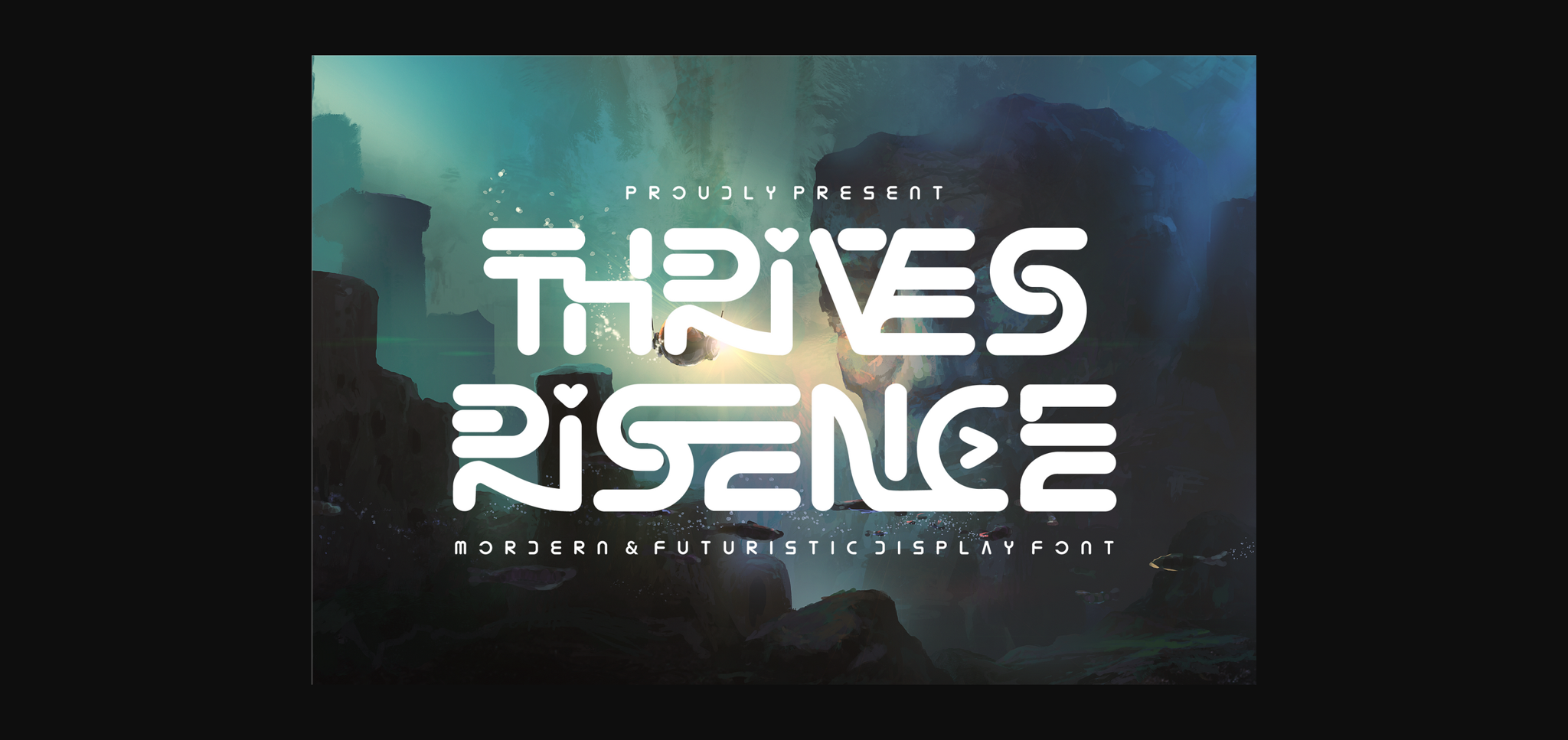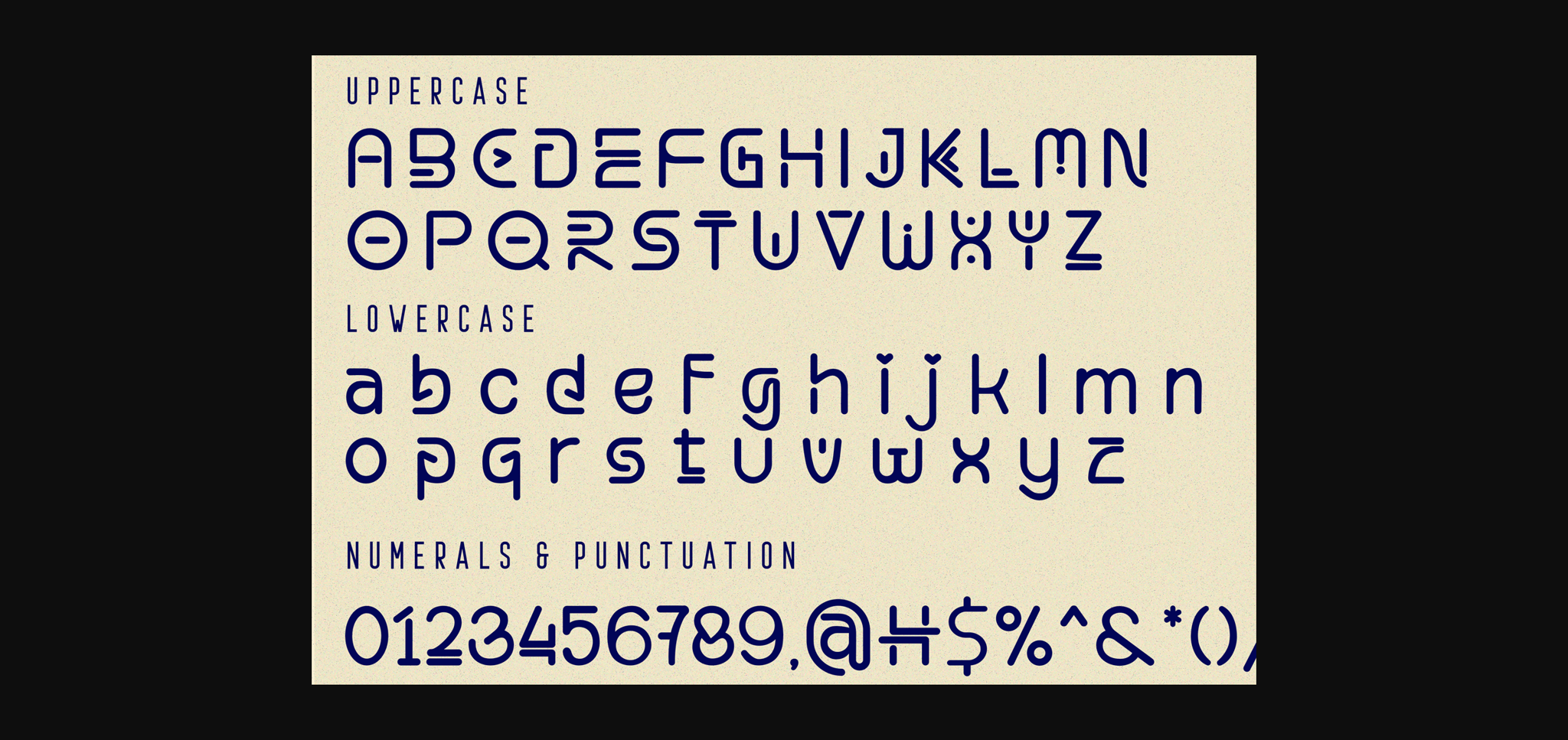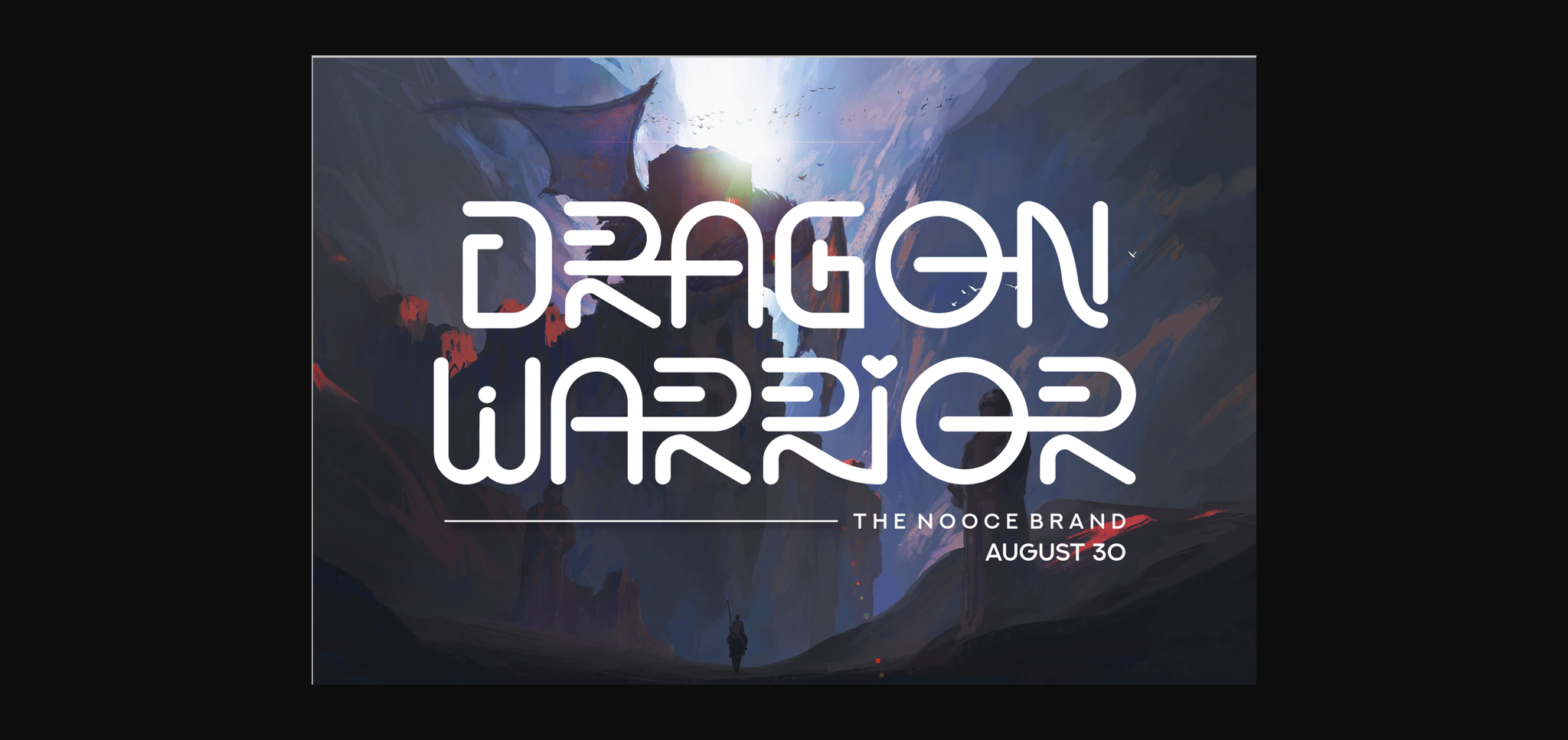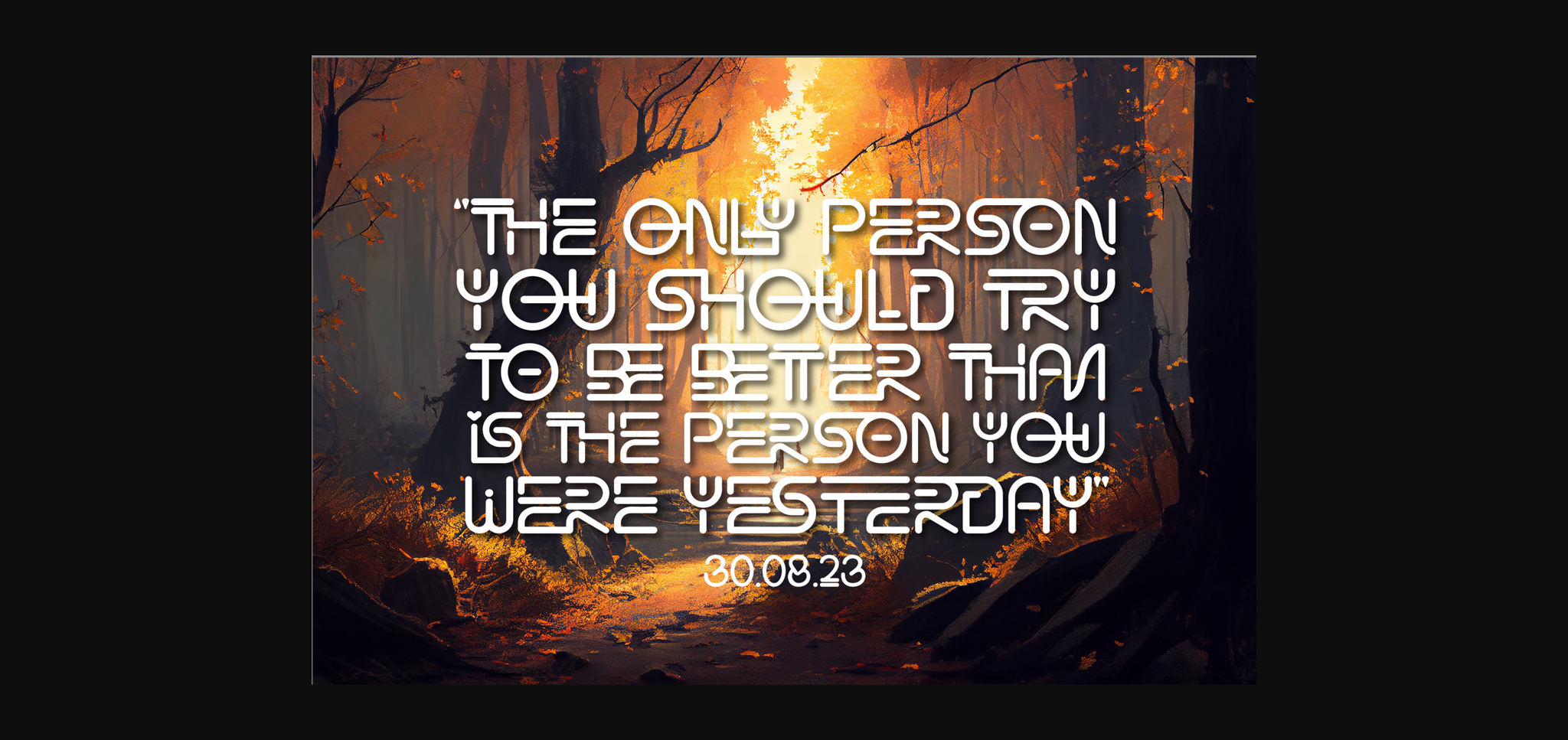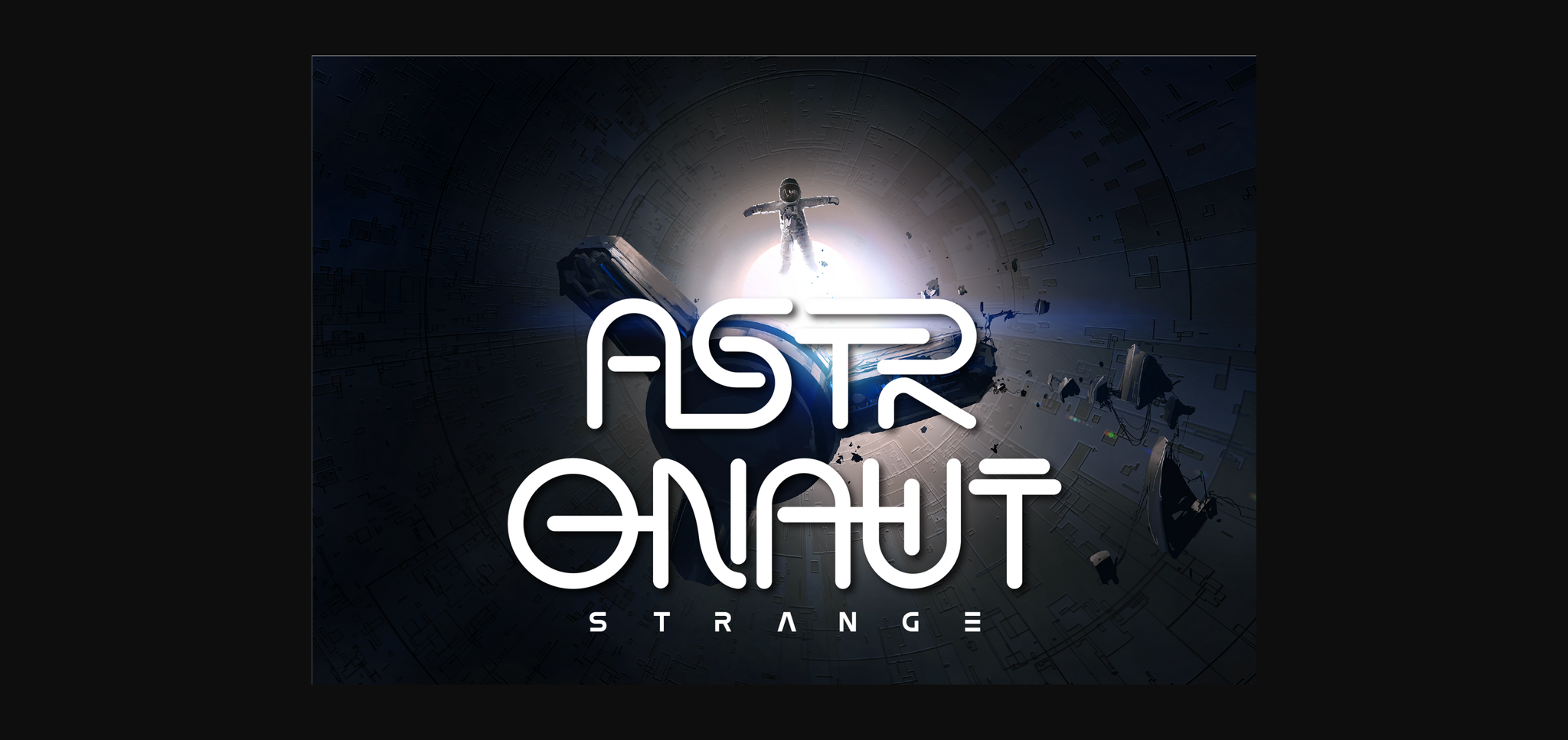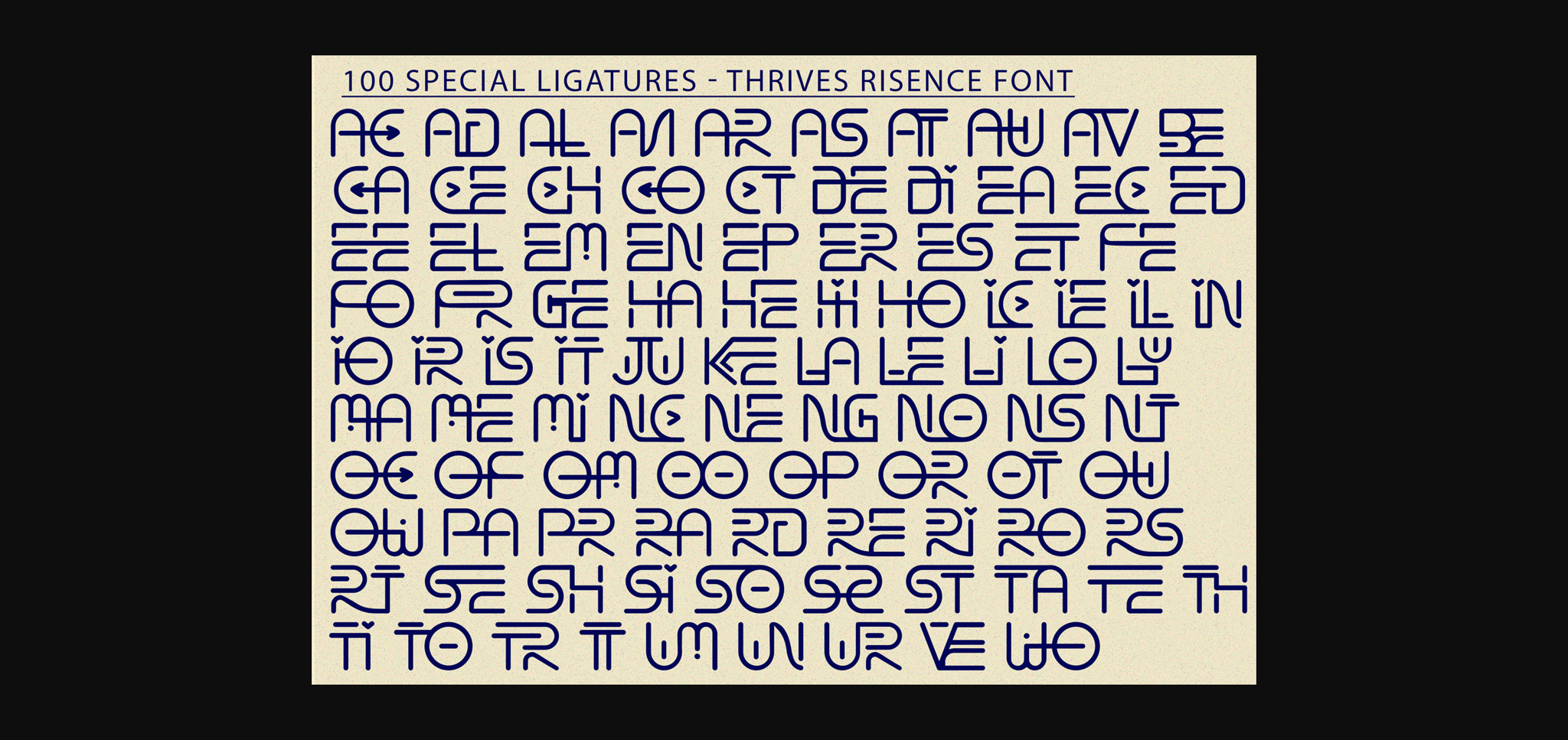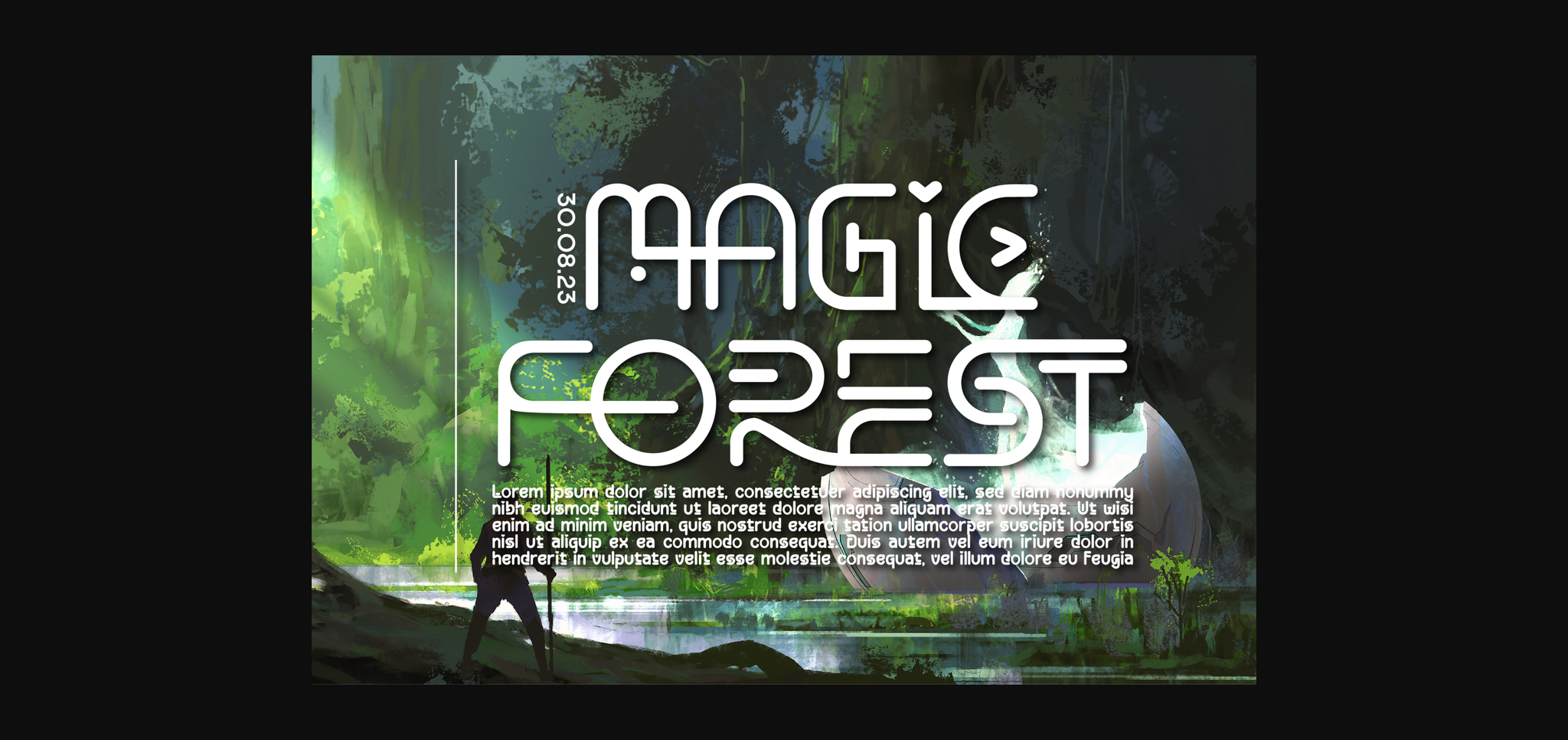
About Thrives Risence Font
Thrives Risence Font is a futuristic science fiction font. A modern sans-serif typeface using minimal letterforms for a futuristic, sci-fi -inspired feel. Perfect for technology, sci-fi, science and all kinds of futuristic projects. Create science fiction posters & flyers, website headers, high-tech logos and so much more!